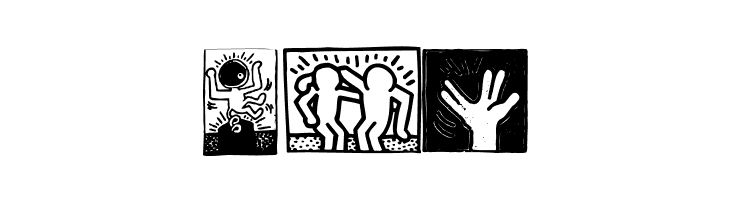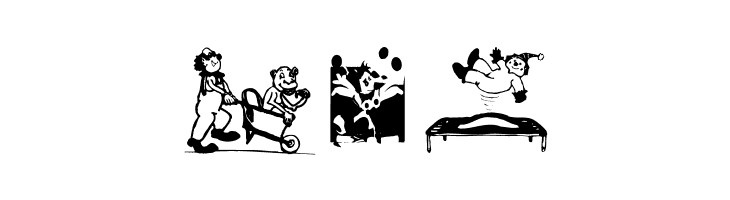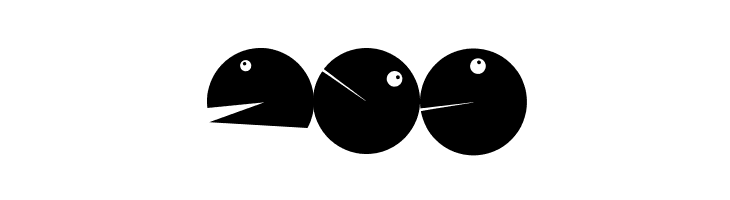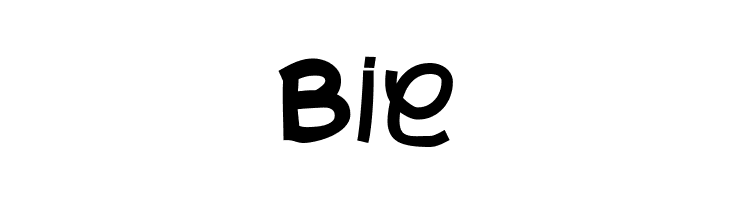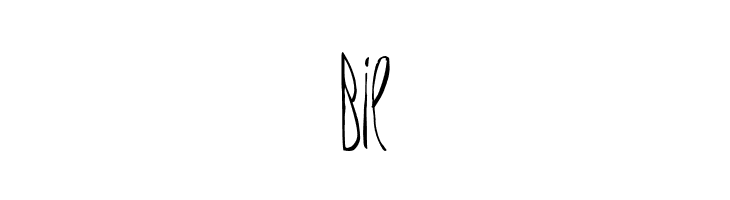
• MoreClowns
Cartoonish, clown-themed decorative font with illustrated glyphs.
• MoreDancing
Illustrative display font featuring diverse dancing figures as letterforms.
• MoreHaringe
A lively, illustrative decorative font inspired by expressive street art.
• MoreMonK
A playful and bold font with exaggerated curves and dynamic strokes.
• MoreSilhousFrame
Decorative font with framed silhouette illustrations for each character.
• Morphes
Abstract shapes resembling Pac-Man, not a font.
• MorscheKnochen
A bold, gothic-inspired Blackletter font with sharp, angular strokes.
• Mort Unicase Bold
( Daniel Plant - www.fontmonster.org )
A unique, artistic font with elongated, narrow characters and a hand-drawn quality.
• Mort Unicase Incised
( Daniel Plant - www.fontmonster.org )
An artistic, incised font with elongated, narrow characters and a modern, decorative style.
• Mort Unicase Thin
( Daniel Plant - www.fontmonster.org )
A modern, ultra-thin unicase font with elongated, elegant characters.